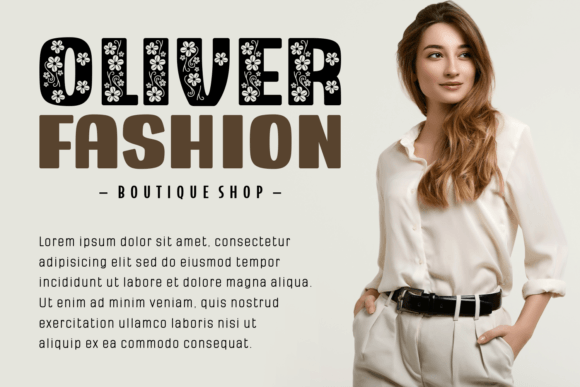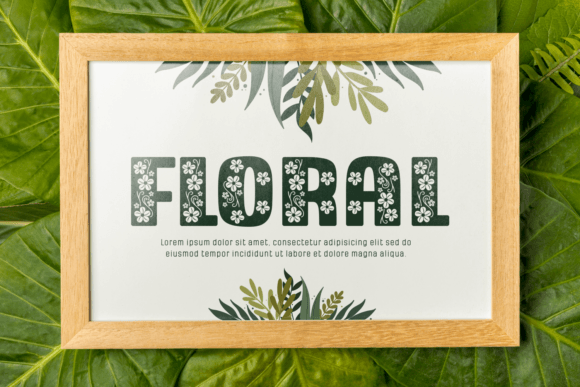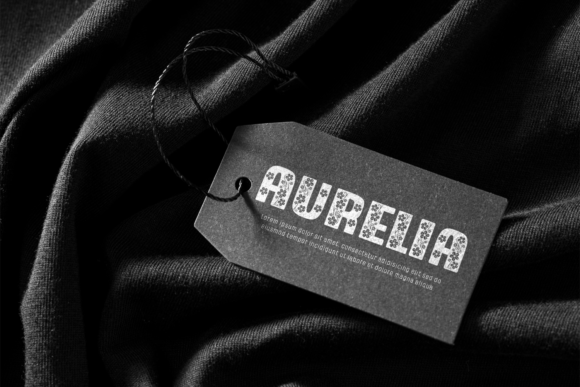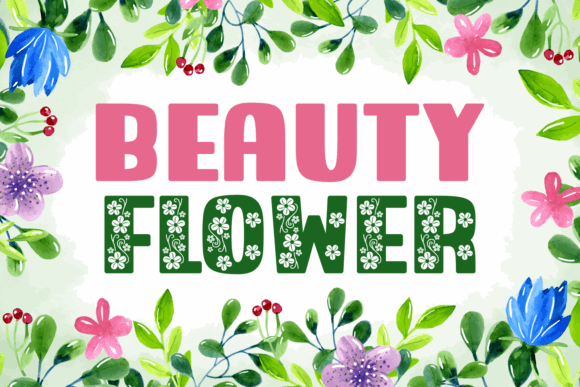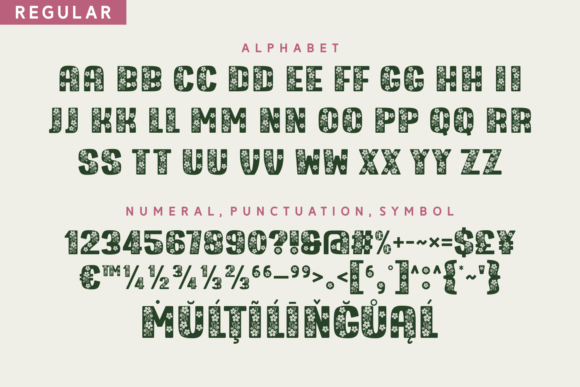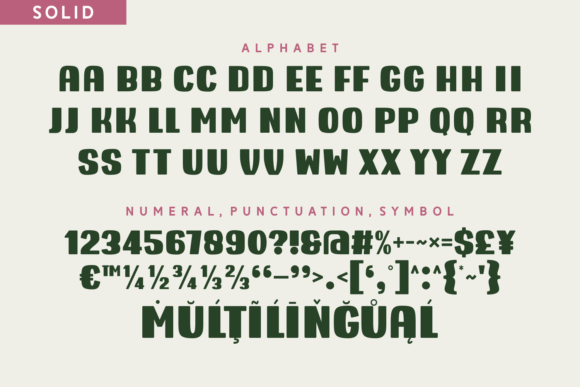
The Blooming Beauty of Amora Bright Font
I’ll never forget the spring project that had me on a font hunt like no other. I was working on a floral-themed branding campaign for a local gift shop, and I needed a font that would capture the essence of the season. The characters had to be thick and bold, yet delicate and whimsical. It was a tall order, but then I stumbled upon Amora Bright Font, and it was love at first sight! 💐
A Beautiful Floral Decorative Font
Amora Bright is a stunning floral decorative font that checks all the boxes for spring-themed projects. The thick characters and delicate flower decorations make this font the perfect choice for florist advertising materials, gift-making, cards, and many more. Whether you’re a designer, crafter, or creative hobbyist, Amora Bright Font is sure to add a touch of elegance and whimsy to your work.
- ✨ Unique and eye-catching design that stands out from the crowd
- ✅ Thick characters that provide excellent readability
- 💐 Delicate flower decorations that add a touch of elegance
- 🎨 Highly versatile and suitable for various design projects
While Amora Bright Font is a beautiful font, it’s not without its quirks. For instance, ⚠️ some characters may appear a bit distorted when used at very small sizes. Additionally, 🤔 the font’s decorative elements can be a bit finicky when used in certain design software.
The Designer Inspiration Behind Amora Bright Font
Amora Bright Font was inspired by the beauty of nature and the elegance of traditional typography. The font’s designer, a creative and passionate typographer, wanted to create a font that would capture the essence of spring and the beauty of floral arrangements. With Amora Bright Font, you’ll feel like you’re adding a touch of elegance and whimsy to your designs.
| Font Name | Amora Bright Font |
| What is Amora Bright Font? | Amora Bright Font is a beautiful floral decorative font that’s perfect for spring-themed projects, florist advertising materials, gift-making, cards, and many more. |